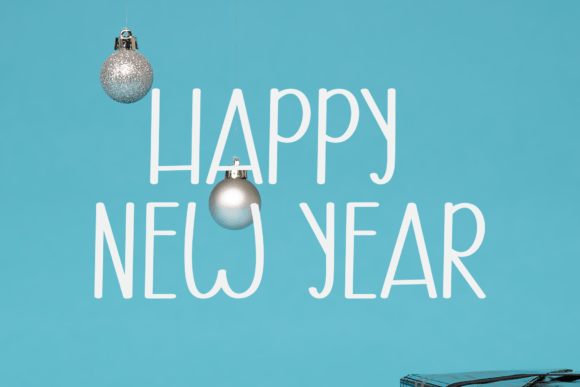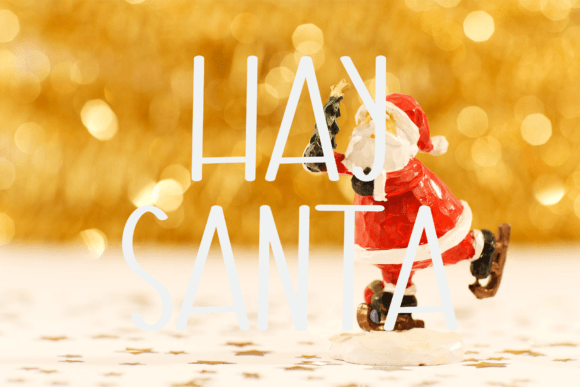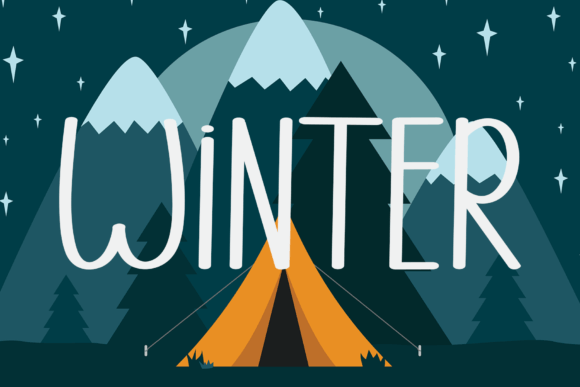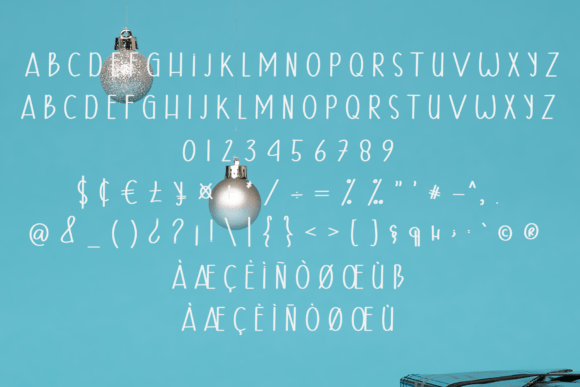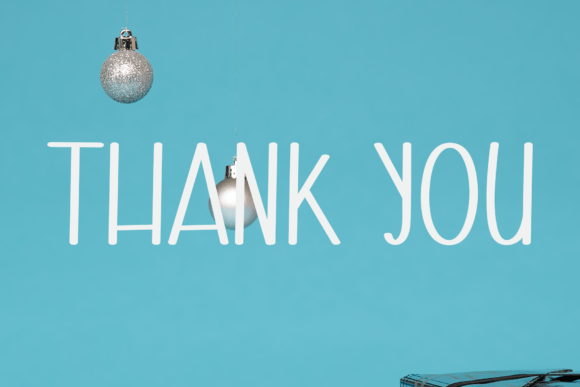
Introduction to Host Christmas Font
As the festive season approaches, we find ourselves searching for that perfect design element to elevate our holiday projects. Whether it’s a handmade card or a digital presentation, a great font can make all the difference. I still remember the excitement of finding the perfect font for my sister’s birthday party invitations a few years ago – it was like the final piece of the puzzle had fallen into place! Similarly, the Host Christmas Font has the power to transform your creative projects into something truly special.
With its fun and friendly handwritten style, this font is perfect for designers looking for a unique and high-quality design resource. Whether you’re working on a craft project, designing digital content, or creating presentations, the Host Christmas Font is sure to be a valuable addition to your toolkit.
Key Features of Host Christmas Font
- High-quality design resource with a festive and elegant feel, perfect for creative projects.
- Transparent background option allows for easy layering and customization in design software.
- Includes a range of festive and holiday-themed characters, making it ideal for Christmas and winter-themed designs.
- Perfect for use in digital and print design projects, including social media graphics, posters, and more.
Honest Review: Host Christmas Font
I recently had the chance to work with the Host Christmas Font for a holiday-themed design project, and I must say it’s been a game-changer. ✨ This font is perfect for any creative project that requires a festive and elegant touch. The high quality of the font ensures that it prints beautifully and looks great on digital screens as well.
- High-quality design with a clear and elegant appearance
- Translucent background option for a more modern look
However, I do have one minor criticism: the font could benefit from more font sizes and styles to make it even more versatile. ⚠️ This limitation aside, I’m thoroughly impressed with the Host Christmas Font and would highly recommend it to any designer looking for a high-quality font for their creative project.
Host Christmas Font
The Host Christmas Font is a high-quality design resource perfect for any creative project that requires a festive touch. This font features a transparent background, making it easy to use in various design applications.
To get the most out of the Host Christmas Font, use it in combination with other design elements, such as images and graphics, to create a cohesive and visually appealing design. You can also experiment with different font sizes, colors, and styles to add more depth and creativity to your project.
The Host Christmas Font is commonly used for designing Christmas-themed projects, such as holiday cards, gift tags, and party invitations. It’s also a great resource for creating social media posts, blog articles, and other online content related to Christmas or winter themes.